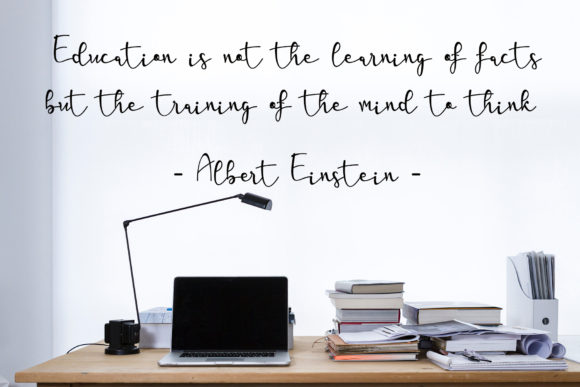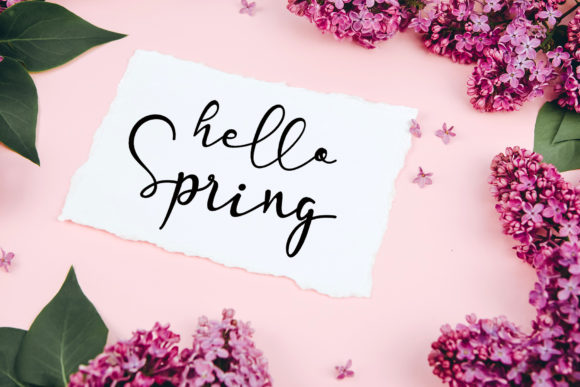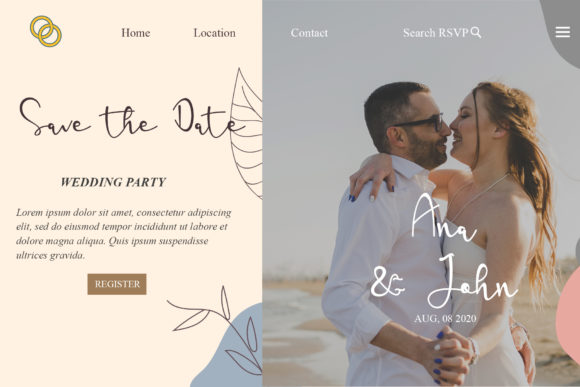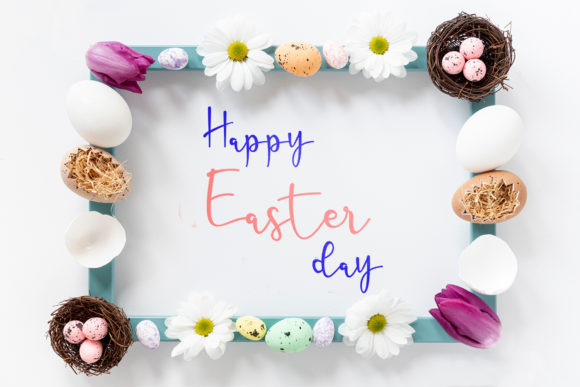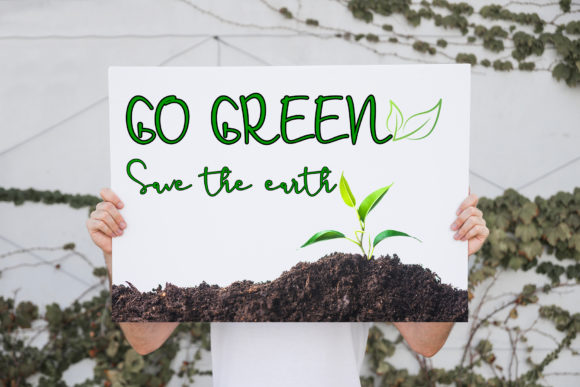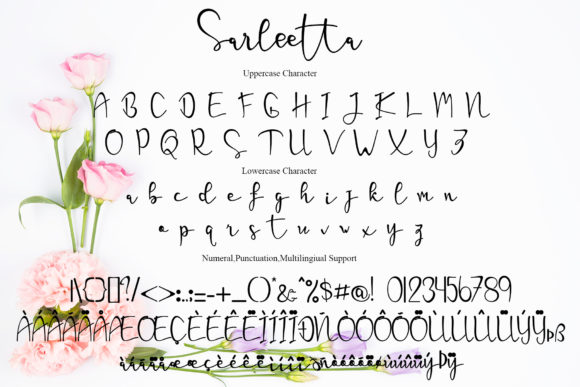
Introduction to Sarleetta Font
Sarleetta is a sweet and cursive handwritten font.
This gentle font will look gorgeous on a variety of design ideas It will add a joyful and romantic touch to each of your projects.